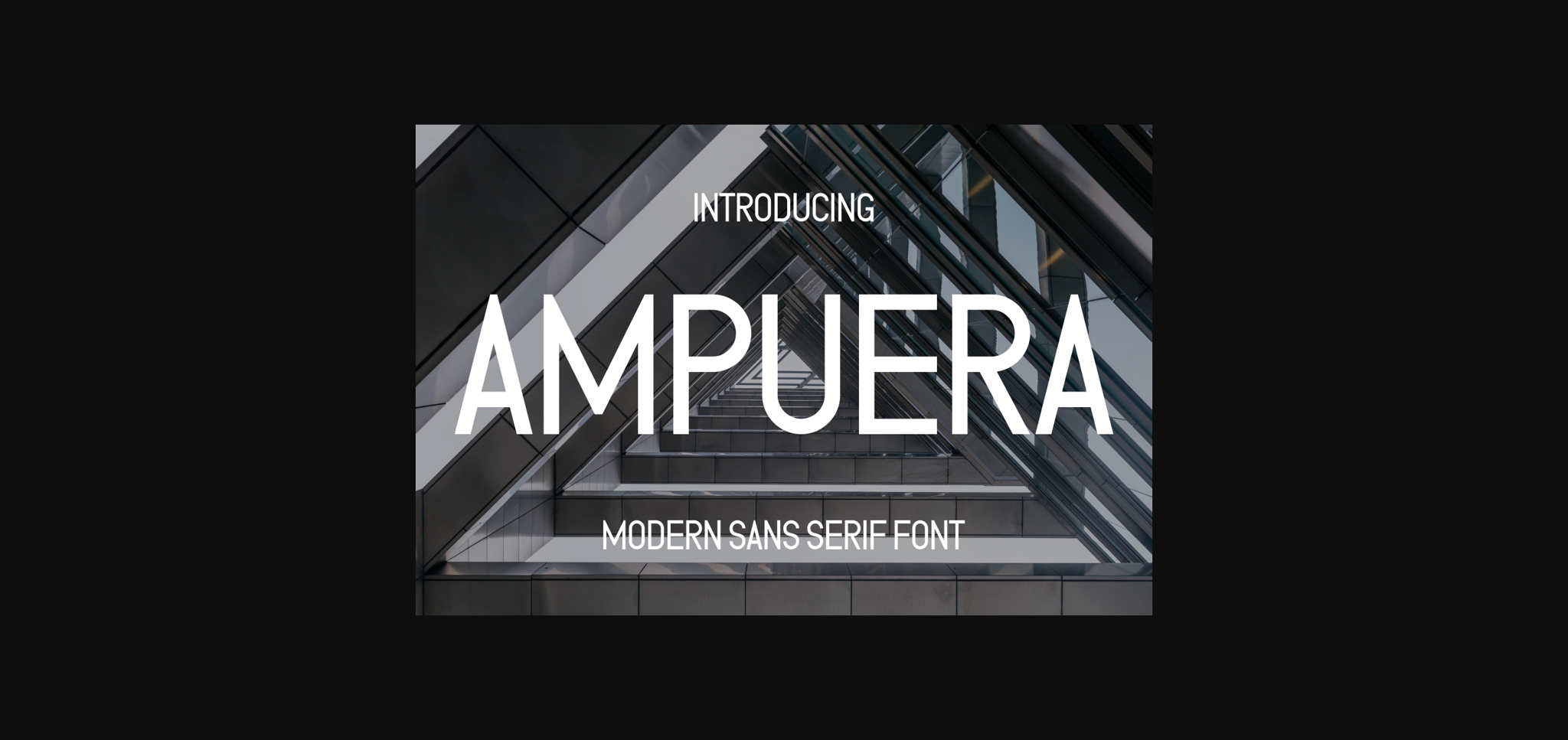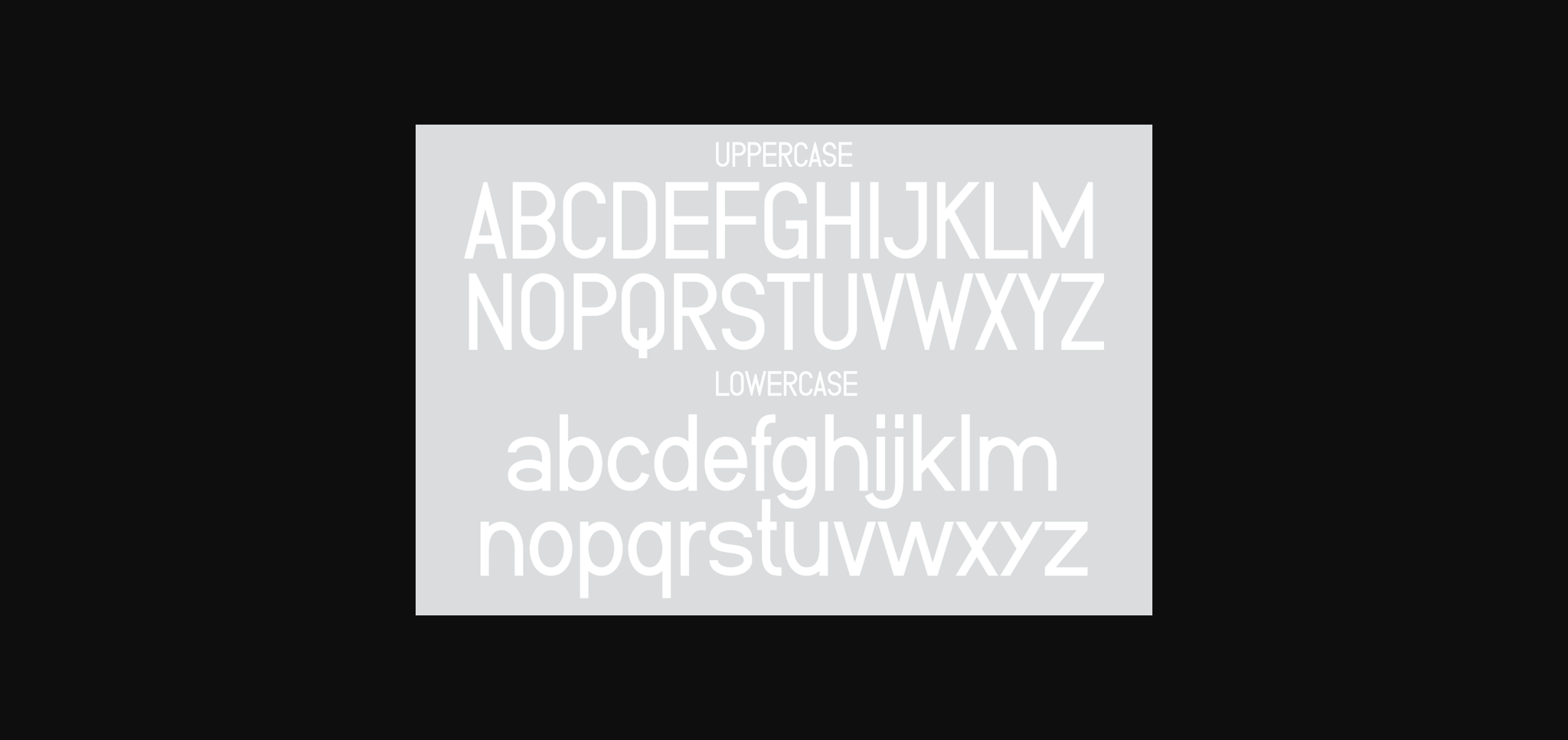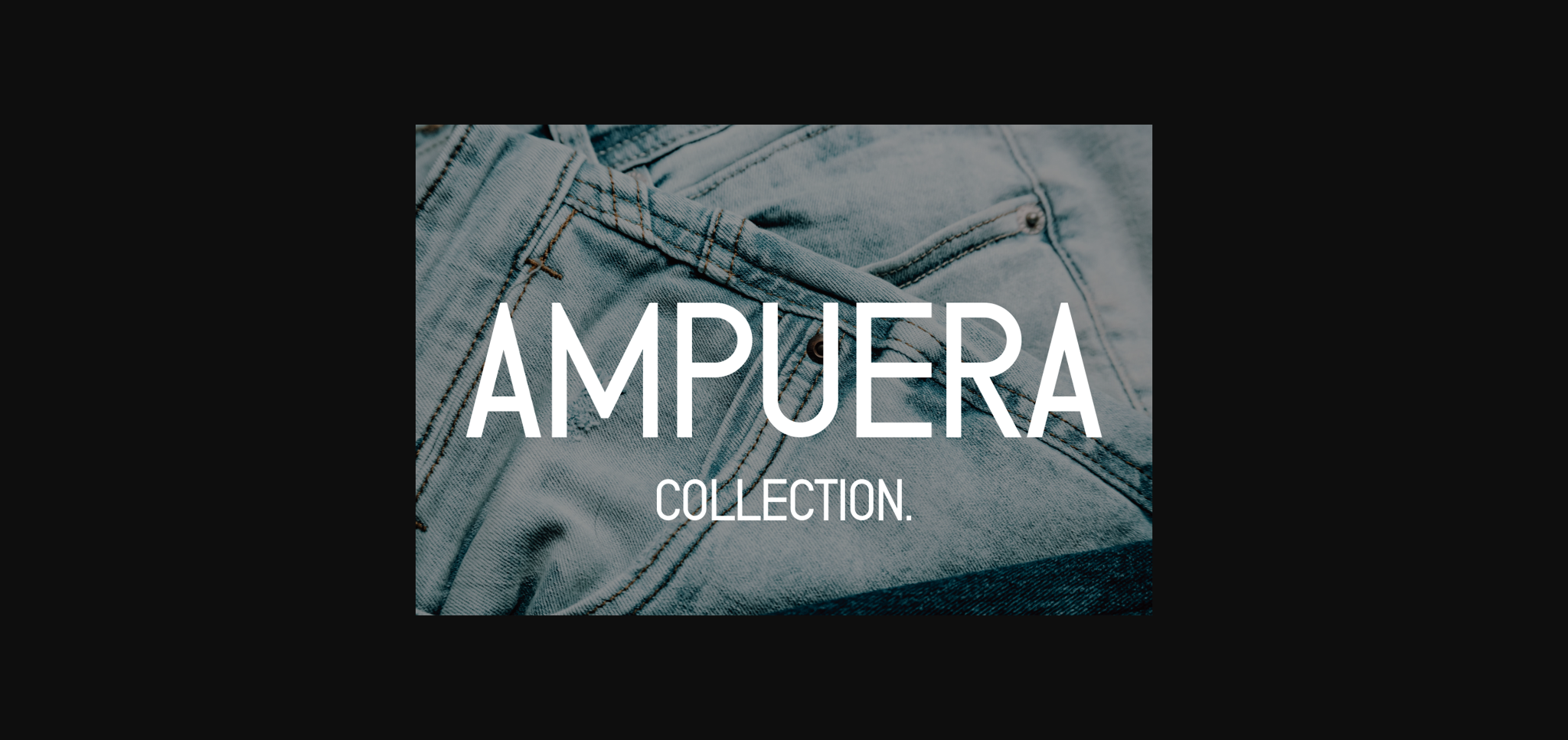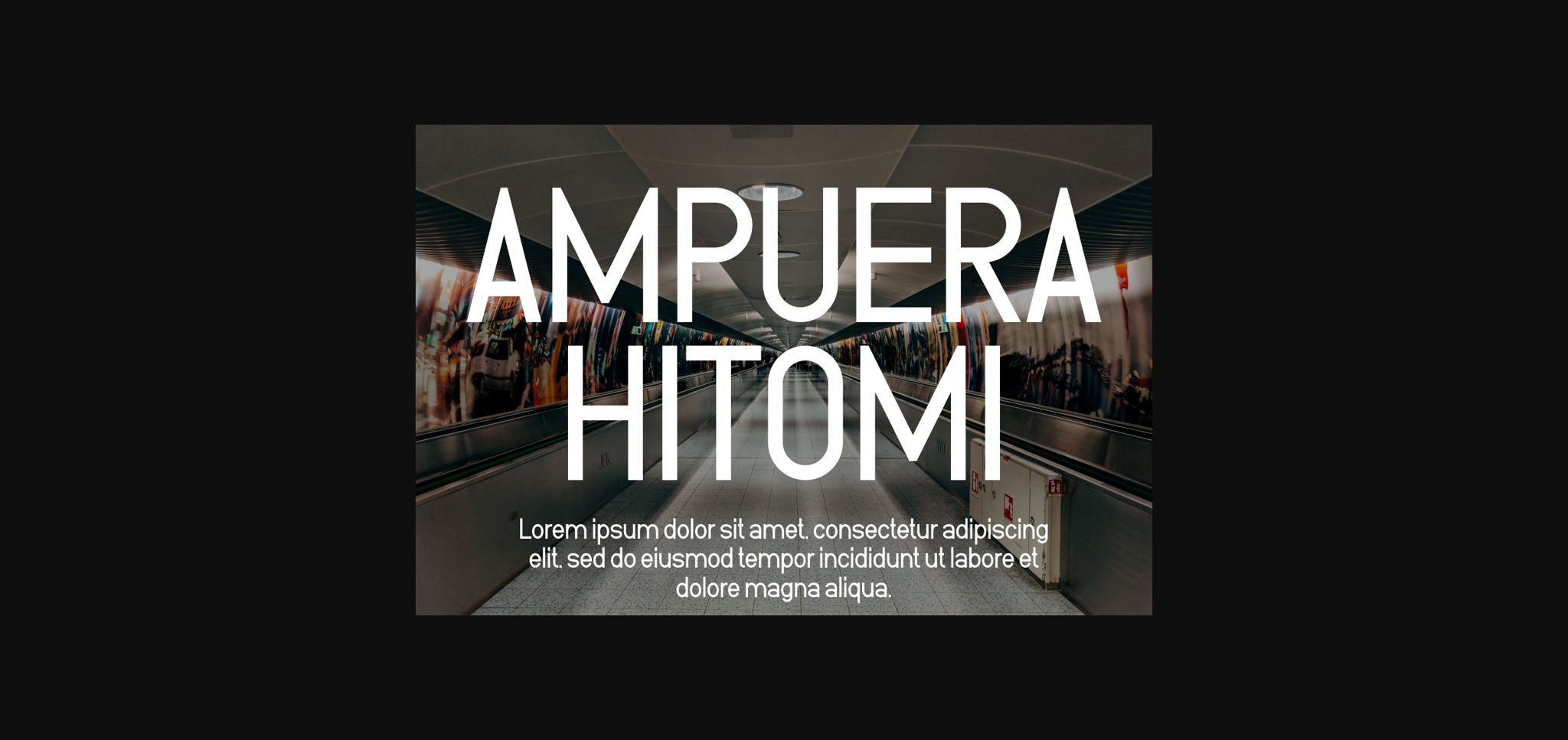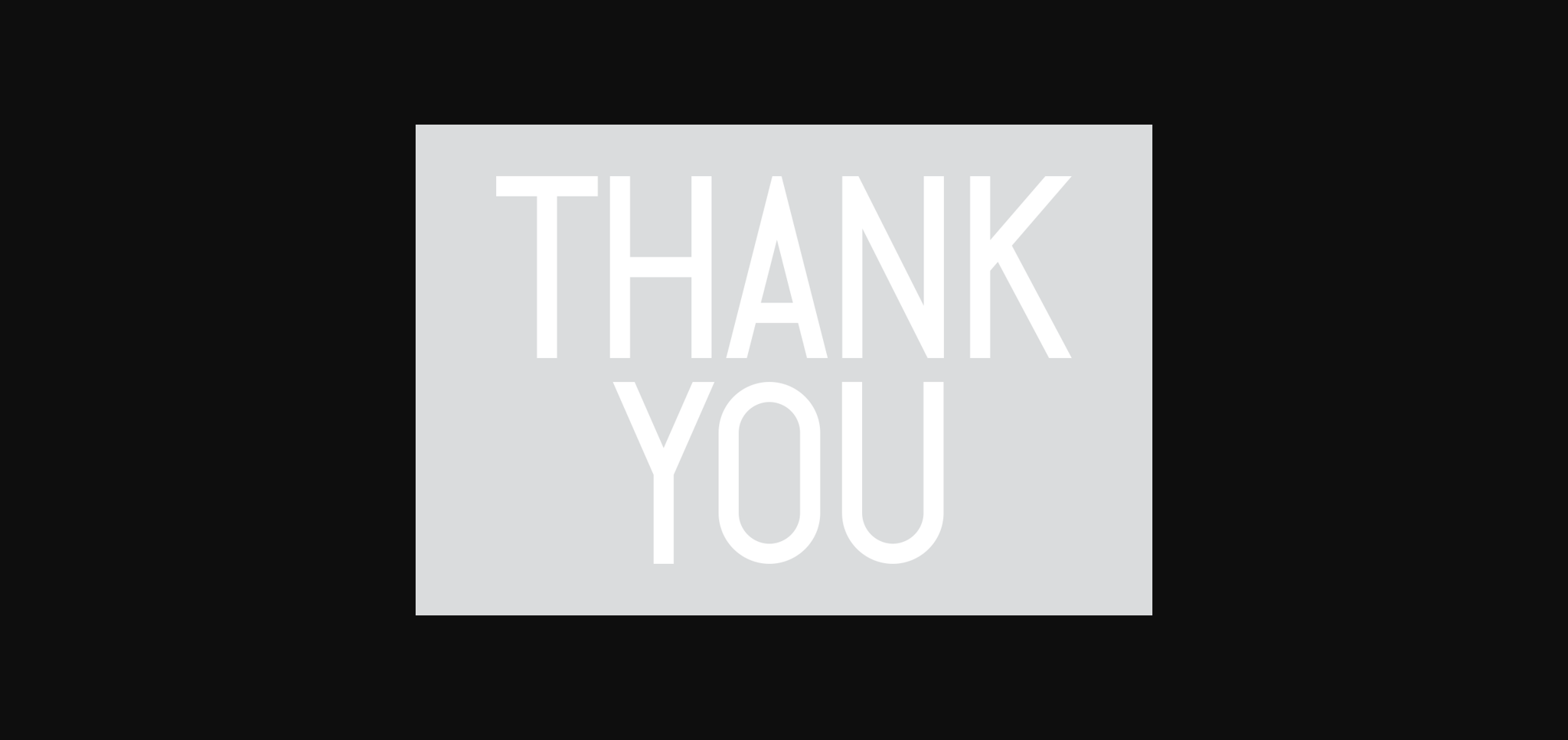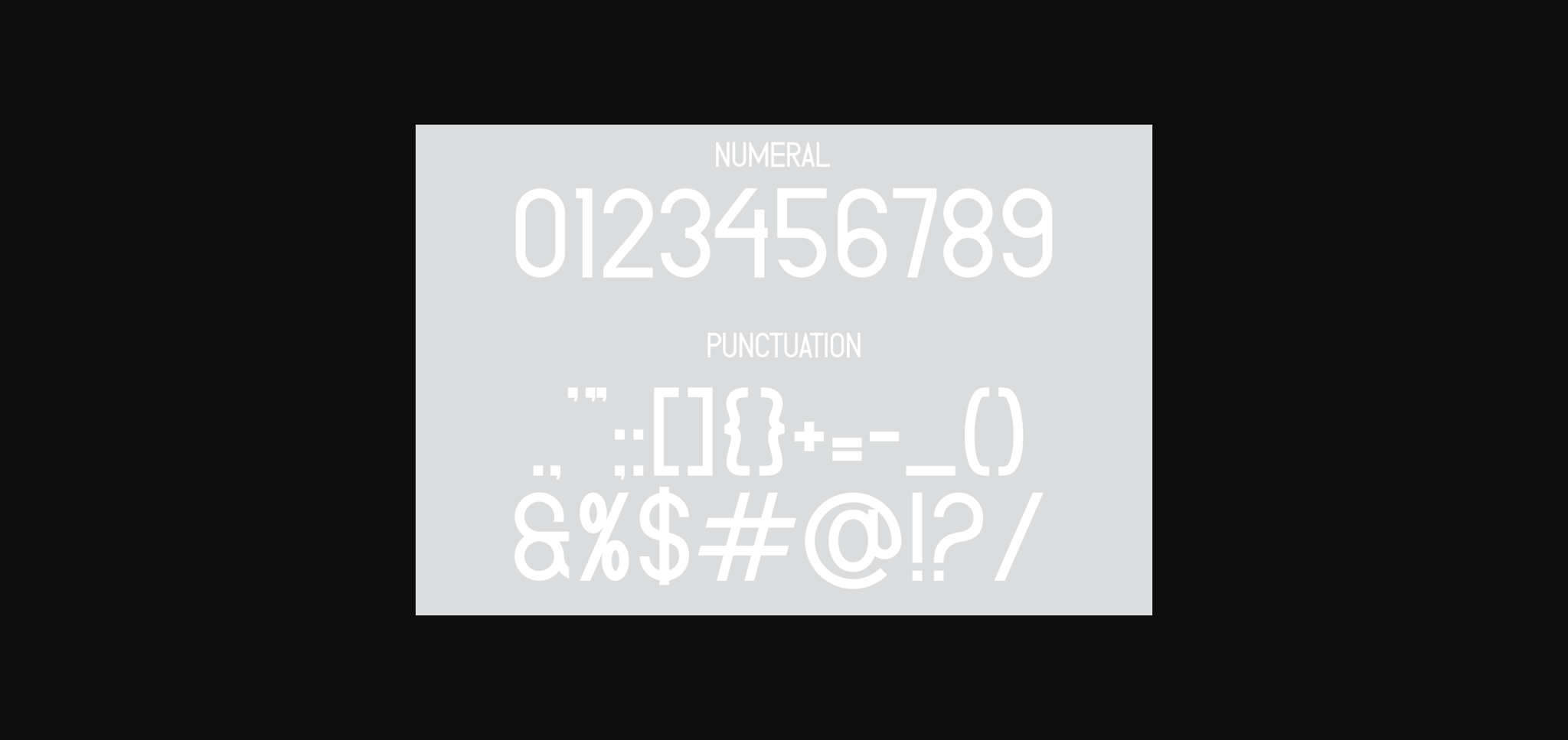
HomeSans Serif FontsAmpuera Font Sans Serif Fonts Ampuera Font FacebookXPinterestWhatsApp 1 of 8 ... Ampuera Font Poster 2... Ampuera Font Poster 3... Ampuera Font Poster 4... Ampuera Font Poster 5... Ampuera Font Poster 6... Ampuera Font Poster 7... Ampuera Font Poster 8... About Ampuera Font Ampuera is a super thick typeface with more traditional letter shapes, making it perfect for creating (or recreating) the concise look of film poster production credits. DOWNLOAD NOW People also explored Lesistar Font Yayollo Font Almond Butter Font Crystal Lake Font Creatine Youth Font The Doctor Samantha Font Beautification Font Pink Pastel Font 253 0 TagsAmpueraAmpuera Font Previous articleBeginning Principle FontNext articleTamegak Font LEAVE A REPLY Cancel reply Comment: Please enter your comment! Name:* Please enter your name here Email:* You have entered an incorrect email address! Please enter your email address here Website: Save my name, email, and website in this browser for the next time I comment. Personal Use Free Adriator Personal Use Free Read more about this font Clumed Personal Use Free Read more about this font Vinograd Personal Use Free Read more about this font Solaria Personal Use Free Read more about this font BLOG How to Cut Any Font on Cricut: Convert a Font to SVG (Free) Turn any font into a clean SVG so it cuts crisp on Cricut - a quick 3-step workflow using a free font-to-SVG tool. Elegant Wedding Invitation Fonts – Handwritten & Script Fonts Best Fonts for YouTube Videos: Make Your Thumbnails Stand Out Transform Your Website: Elevate Your Typography with 7 Best Web Font Generators